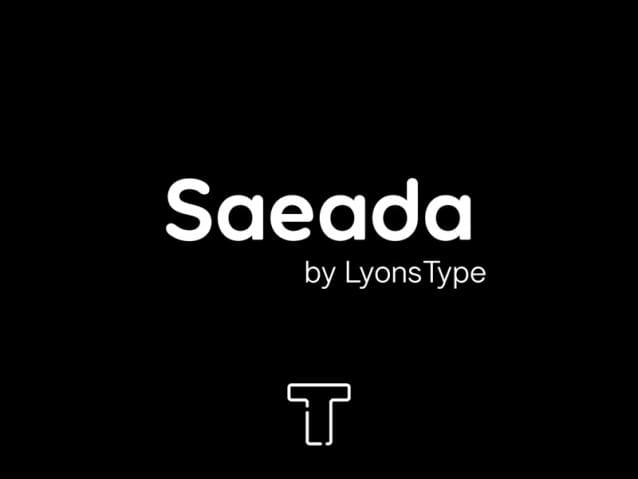
LT Saeada Font Family is a sans serif stunning when combined or separately. This sans serif font style is legible and stunningly designed.
LT Saeada. Arabic for “happiness”. Top round and bottom square.